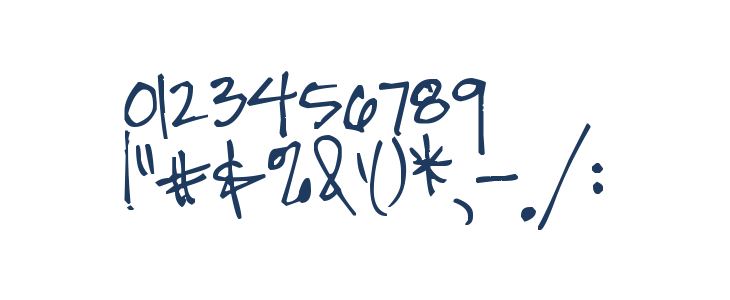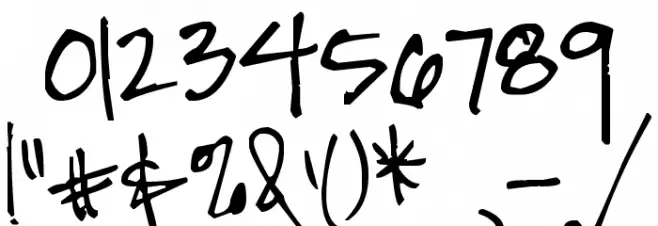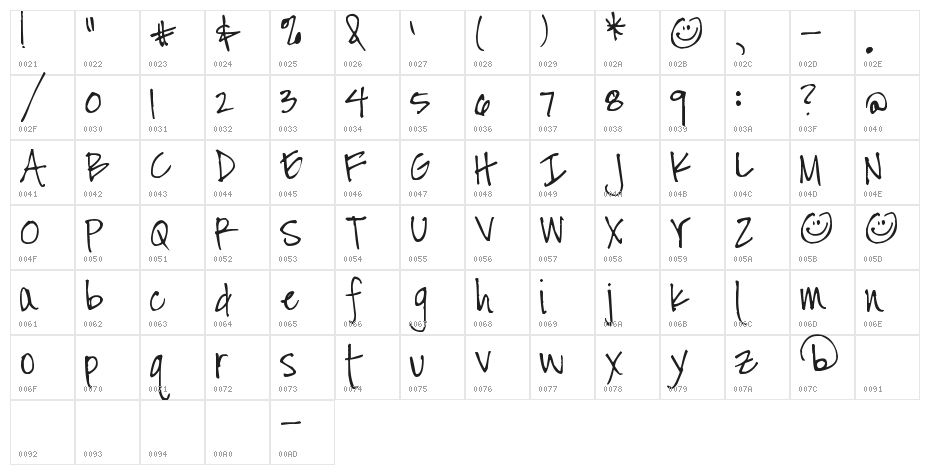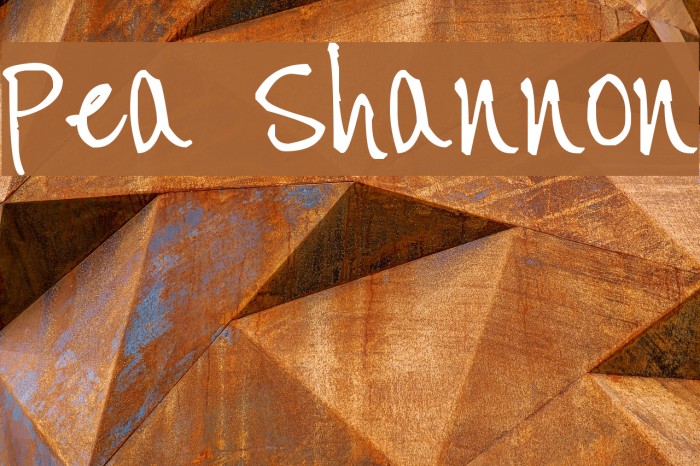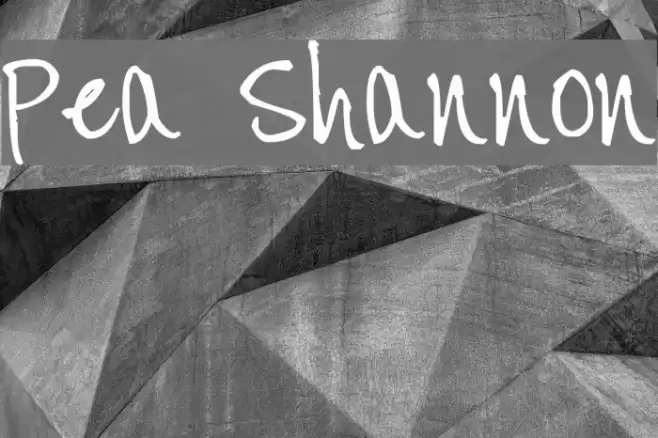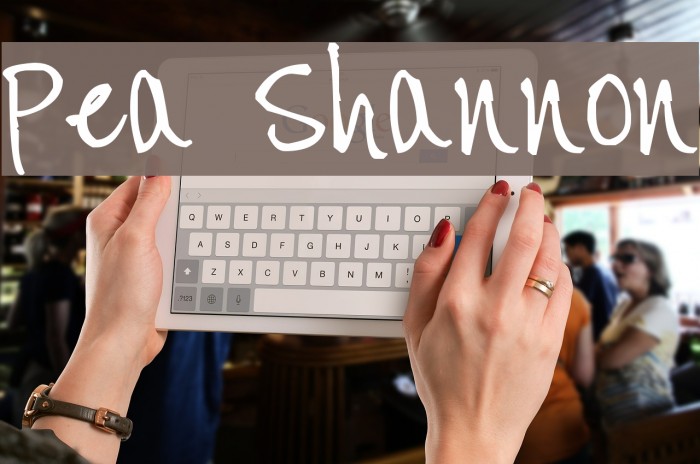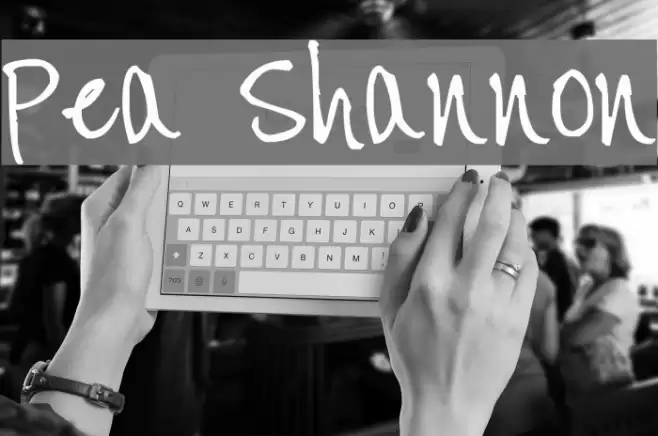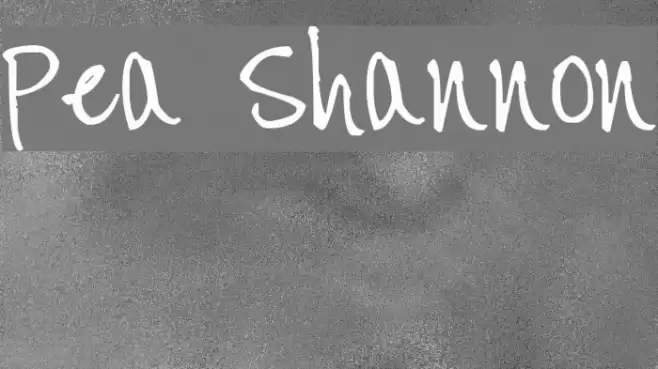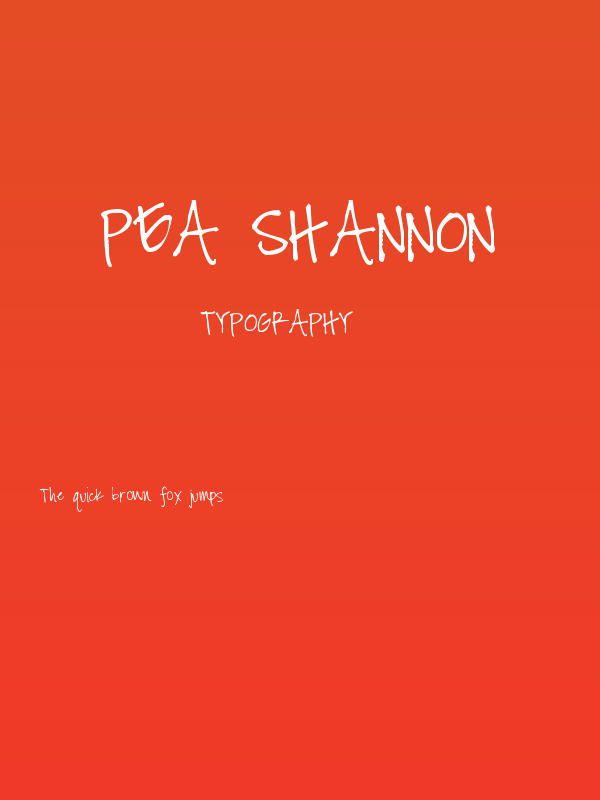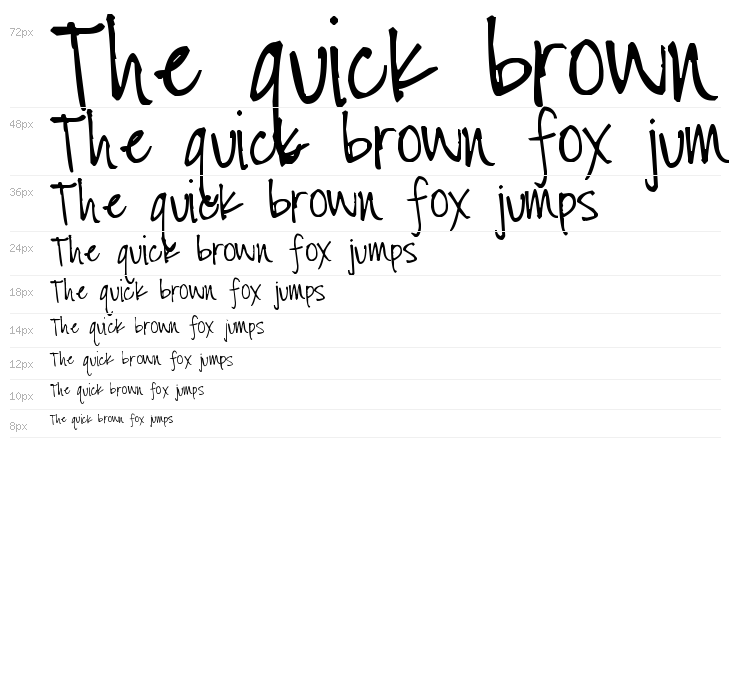
Pea Shannon Font
Pea Shannon Description
This font features a playful and casual handwritten style, characterized by its loose and flowing strokes. The letters have a natural, organic feel, with varying line thickness that adds a dynamic and lively touch. The uppercase and lowercase letters are well-balanced, maintaining a consistent style throughout. Numbers and special characters are included, matching the overall aesthetic with their quirky and informal appearance. This font exudes a sense of friendliness and approachability, making it ideal for projects that aim to convey a personal or informal tone.